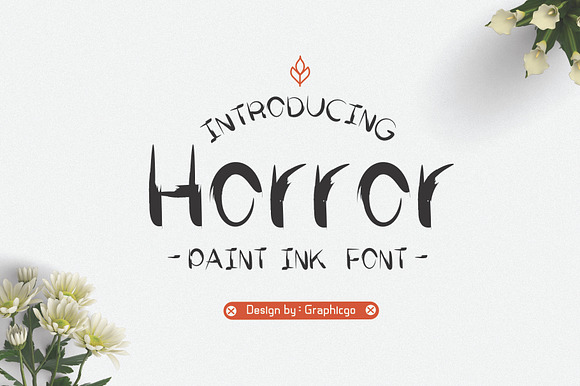
Horror Ink Font
Horror ink font consists of brush and bold ink style. It has dynamic and horror looks, and can be used for many different types of your projects, especially japanese and chinese looking works
Why Horror Ink Font is worth a look
Horror Ink Font by Graphicgo fits naturally into Branding, posters, packaging, typography.